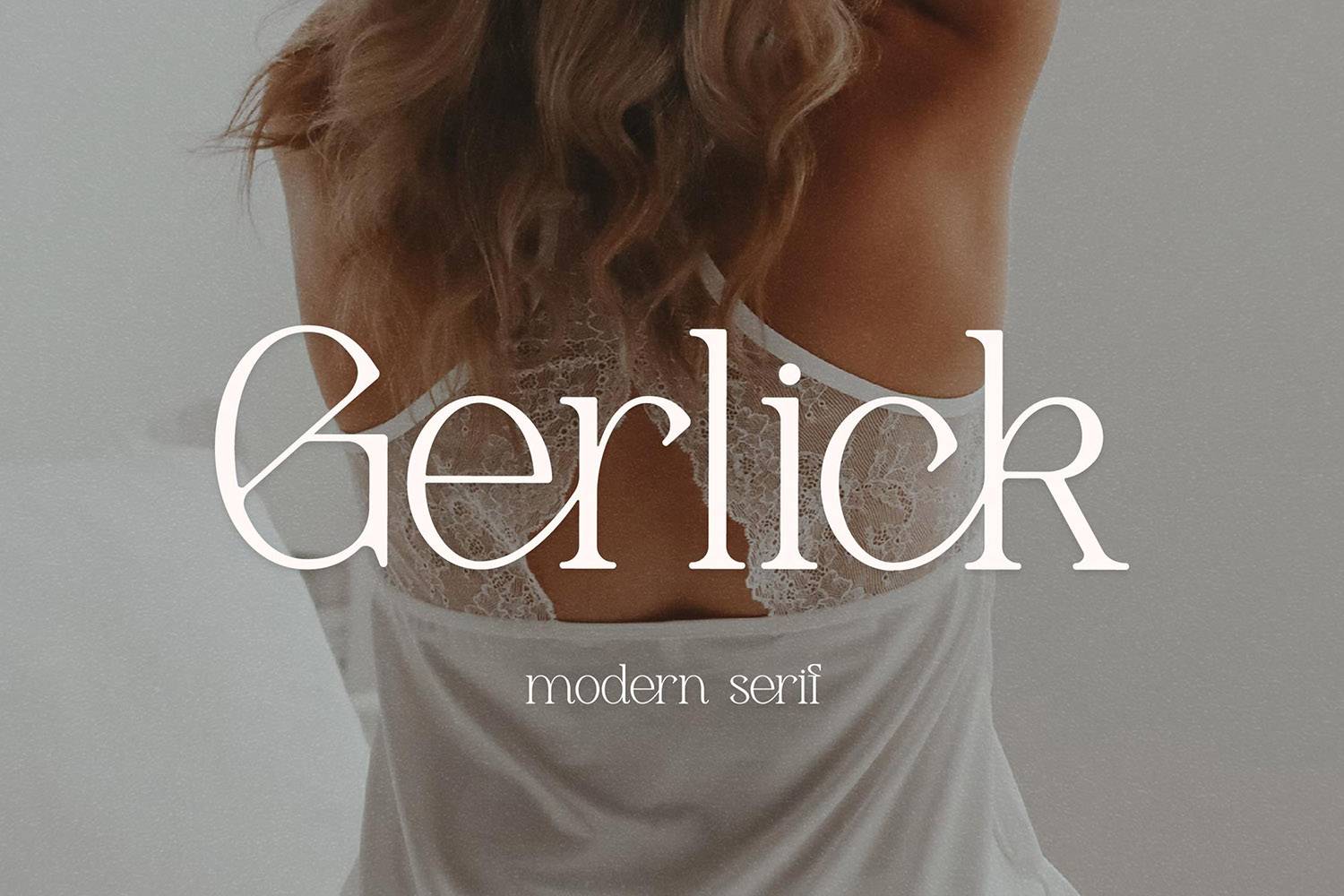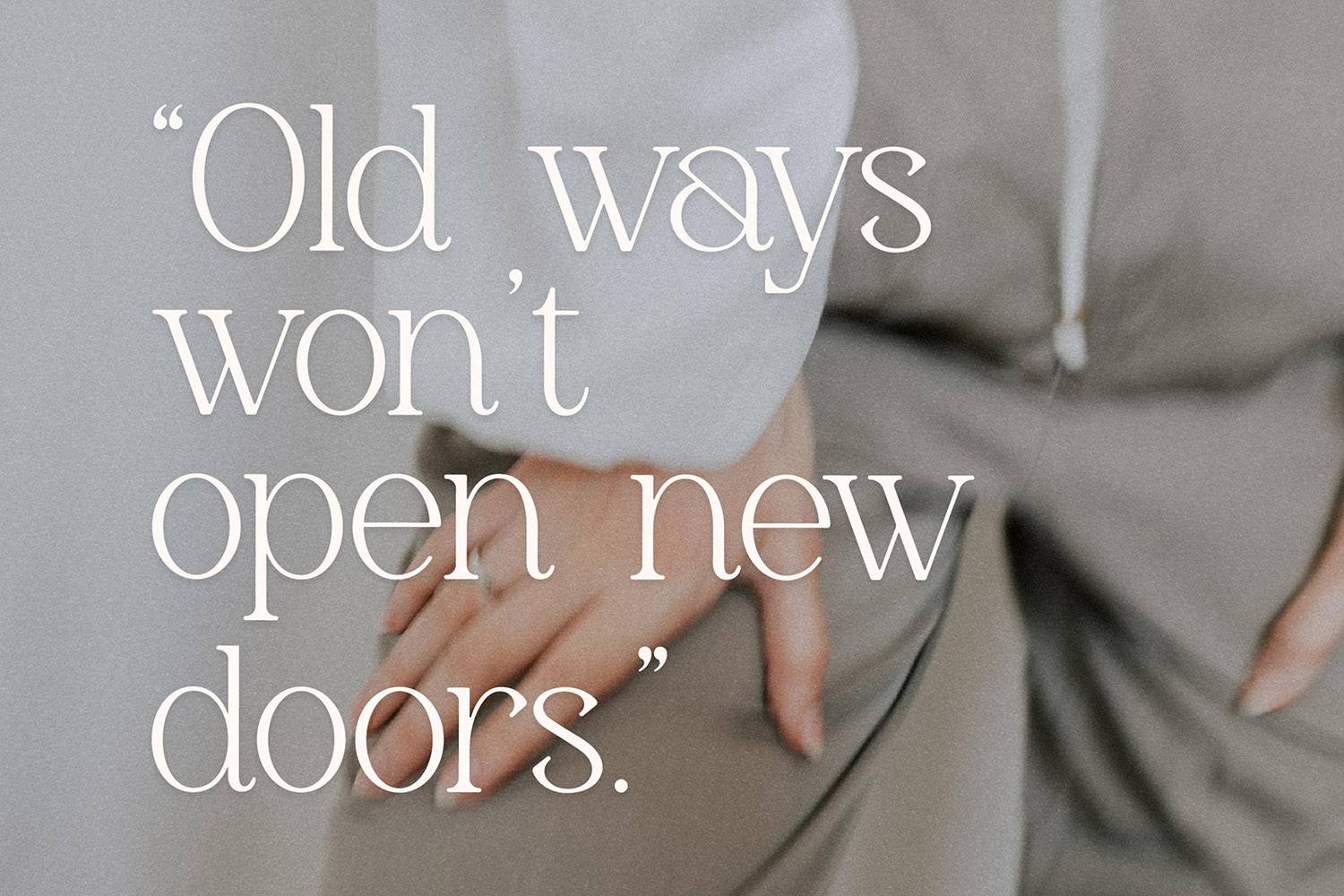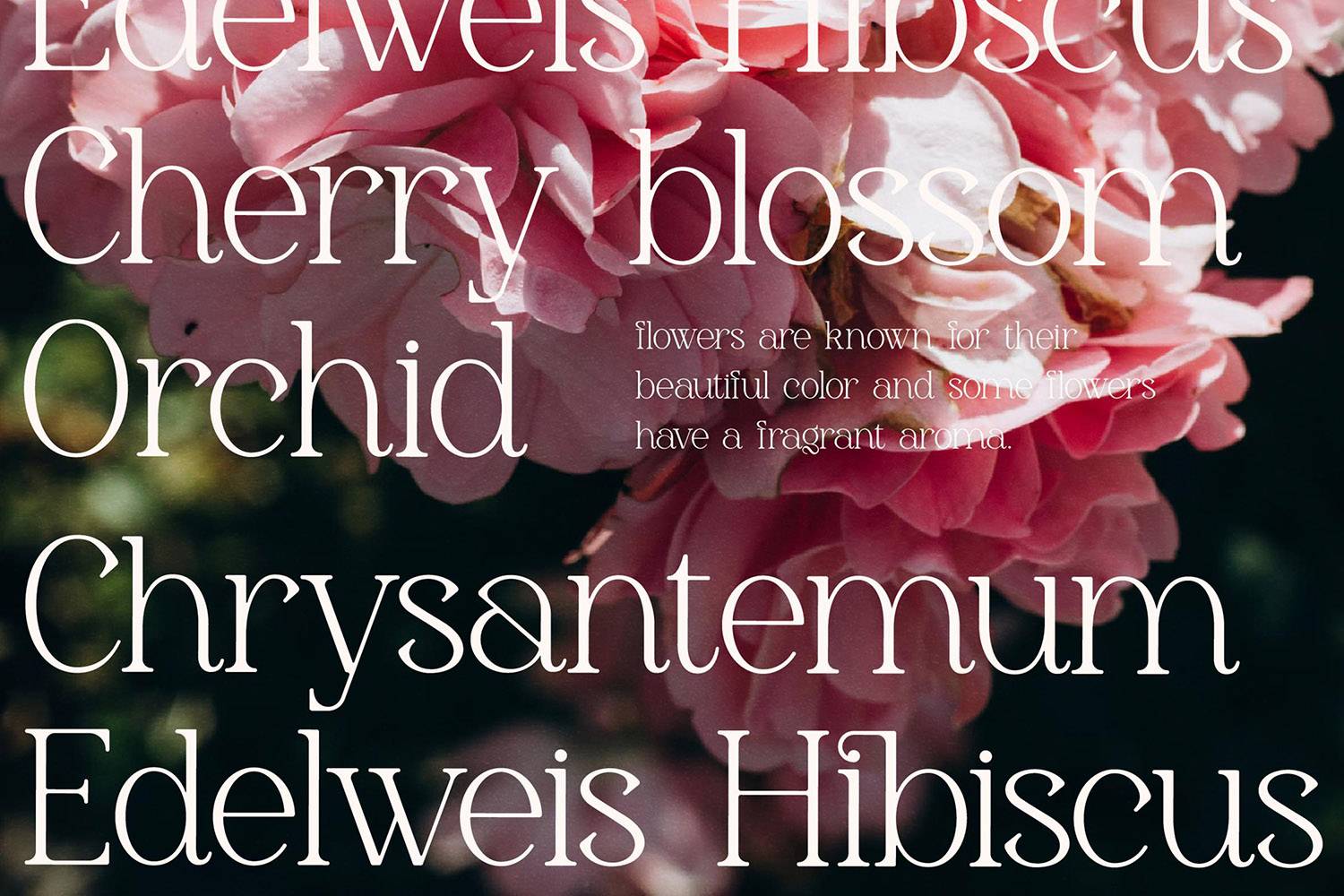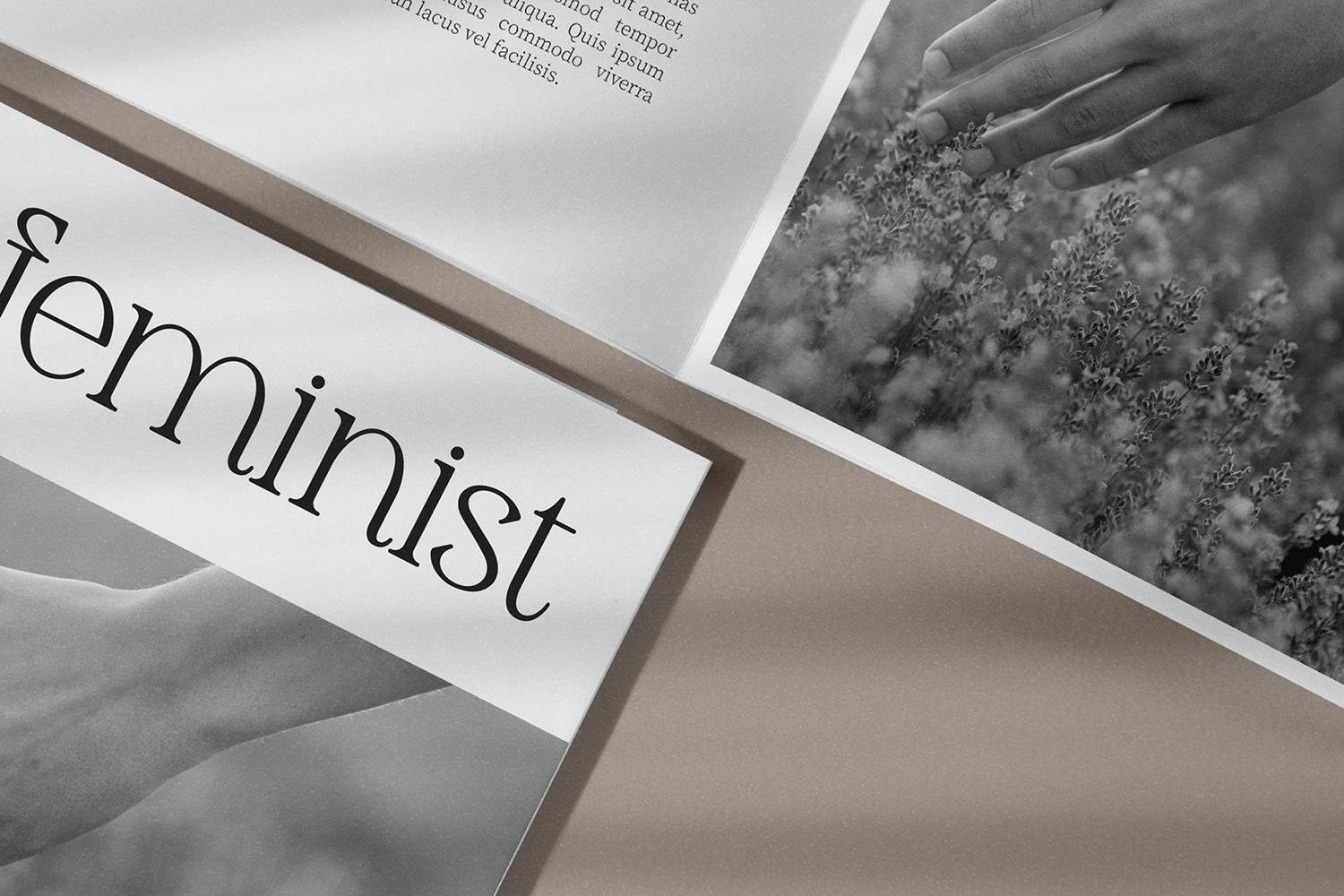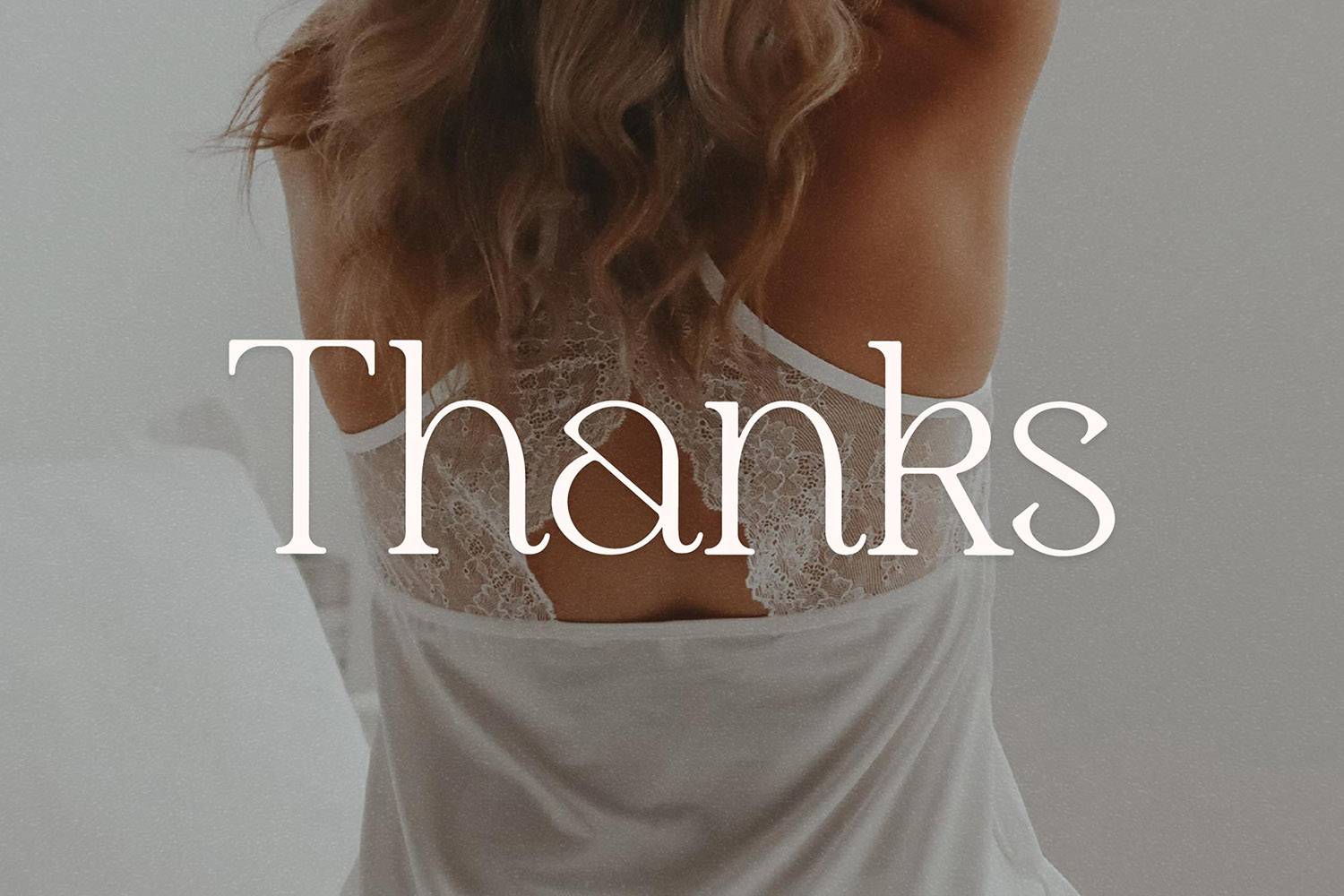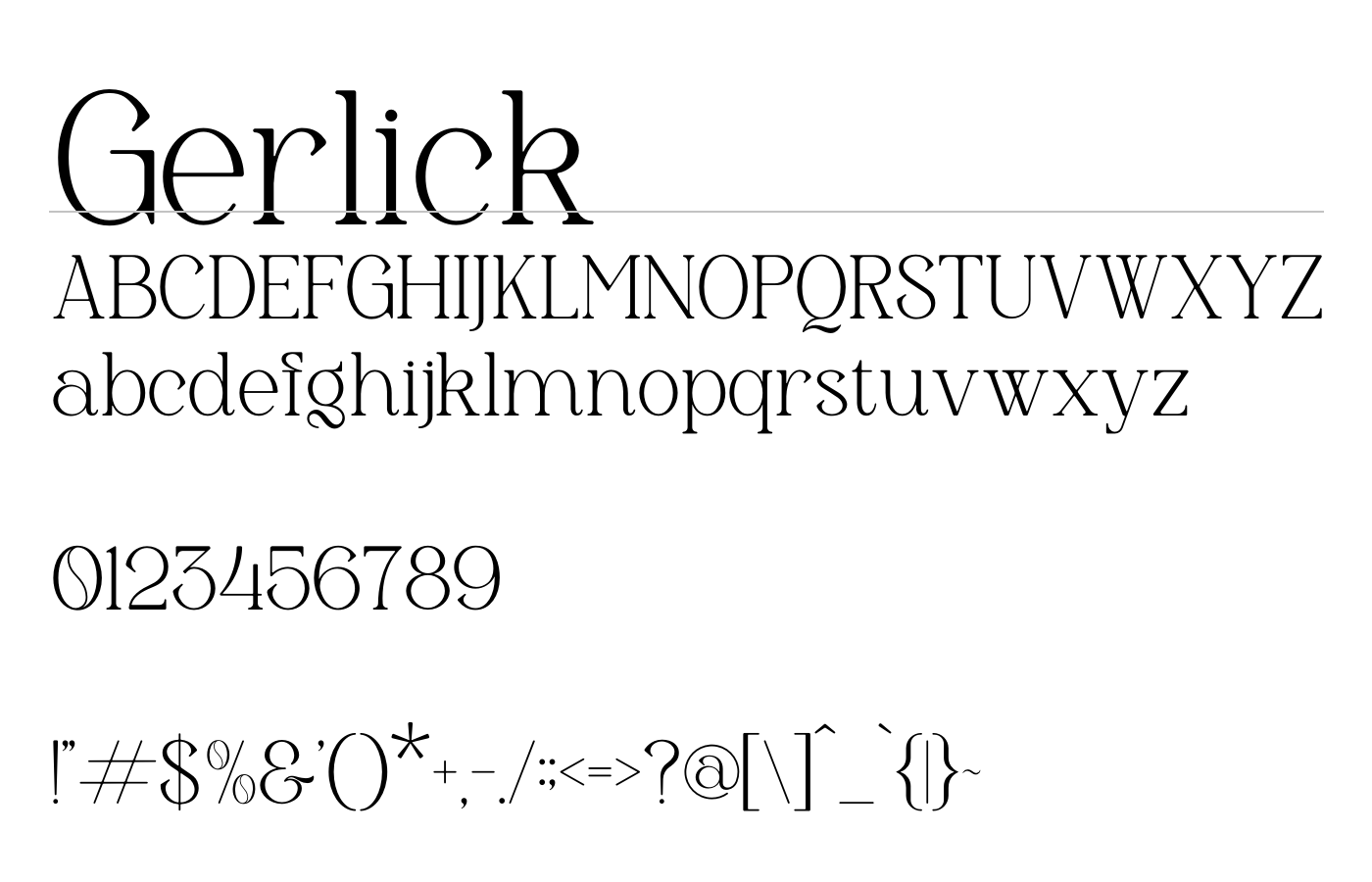
Gerlick is an elegant serif font with a delicate contrast between thin and thicker strokes, featuring thin, bracketed serifs that give it a refined and classic feel. Its tall x-height and unique letterforms, such as the single-story 'g' and distinctive ampersand, make it well-suited for sophisticated branding, editorial design, and luxury packaging where a touch of timeless style and readability is desired. This font works beautifully in headlines and logos that aim to convey a sense of elegance and subtle personality.
Gerlick Font
About Gerlick Font